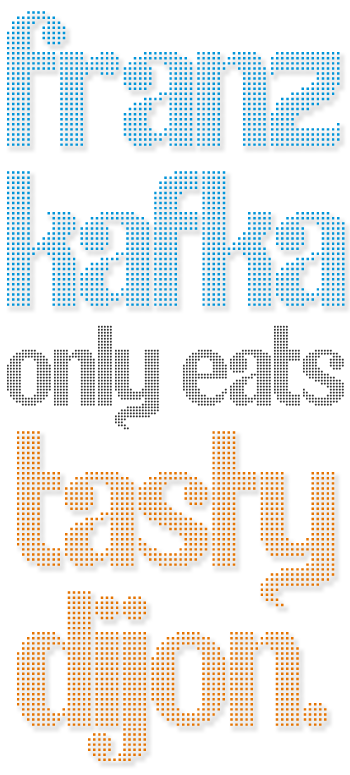
This is very nice...but there seems to always be a feeling that some letters were more worked than others, guess that’s the consequence from mixing such different families.
Yeah, it is a tough mix. I tried throwing in the alternates to fix some troublesome words. Are there any glyphs you think need to be redone or need alternates?
Me too :) I'm rather proud of the g as well. I'm on the fence about the e and s though...
Never mind what I said before!
This is a mix family font so there are bound to be diferences, changes will only make it look to much as Helvetica or to much as Times. Diferent/mixed isn't always bad.
Some letters are way out there like the v, w, x, and z which look nothing like Times or Helvetica. I didn't actually look at the fonts except on the a, b, and g...the rest was inspired by those.
Fixed the e up a bit and I'm really happy with the s now.
I could switch the default letters to the lowercase but it just bugs me to see "fjktz" first in the preview. Whatever happened to the idea for Aa, Bb, Cc?
Thanks jhejka! The default letters are on the uppercase, the alternates are on the lowercase. So to write "franz kafka" like in the sample type "FRANZ KAfkA"
I don't know Emepar. . .I think you better check the birth certificate again. Neither TNR nor Helvetica have those wonderful ball terminals. Could there be a mysterious third party?
Nice, emepar. I like the swashing descenders. I would try changing all horizontal bars to a height of 2 dots. The design seems original enough to merit an unique name of its own.
Thanks geneus1. I've thickened the crossbar on the e. I tried messing with the a but it looked off. Hah I wish I could think of one! It seems all my creativity went into the design...
I have to learn to be more descriptive to clarify what I mean. I think the a looks fine. Things to try: the top of the e can be thinned out to match the top of the g. The horizontal bars that can also be thinned are on the f, and t, as well as the horizontal lines on the z. I hope that helps.
There are some really interesting exotic names that can be extracted from the Lorem Ipsum text.
Yeah, it is a tough mix. I tried throwing in the alternates to fix some troublesome words. Are there any glyphs you think need to be redone or need alternates?
Me too :) I'm rather proud of the g as well. I'm on the fence about the e and s though...
This is a mix family font so there are bound to be diferences, changes will only make it look to much as Helvetica or to much as Times. Diferent/mixed isn't always bad.
ps: yes the "g" is a climax.
I like the s though.
I was confused for second when I tried the USER INPUT option. All of you letters are lc, but they are on the uc glyphs.
Some letters are way out there like the v, w, x, and z which look nothing like Times or Helvetica. I didn't actually look at the fonts except on the a, b, and g...the rest was inspired by those.
Fixed the e up a bit and I'm really happy with the s now.
I could switch the default letters to the lowercase but it just bugs me to see "fjktz" first in the preview. Whatever happened to the idea for Aa, Bb, Cc?
Oh and my imagination, I just like the name :)
I absolutely love the look of it.
There are some really interesting exotic names that can be extracted from the Lorem Ipsum text.